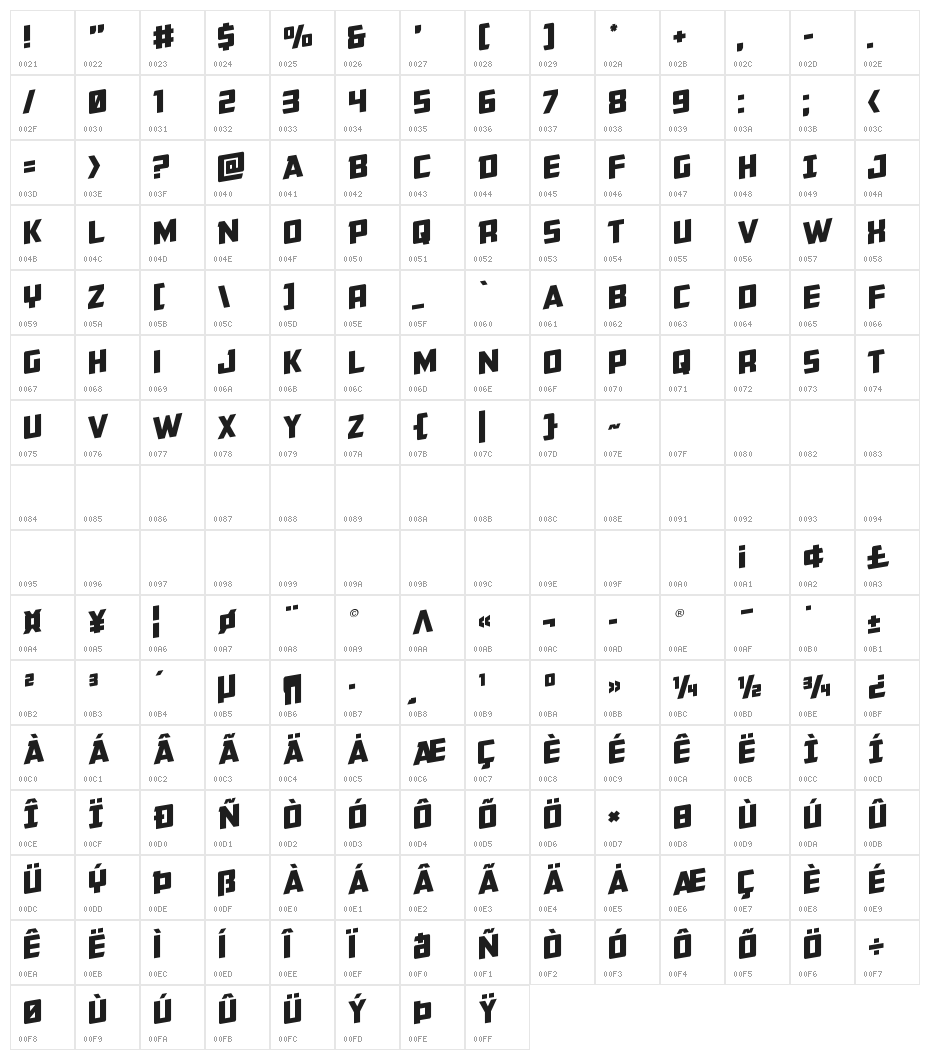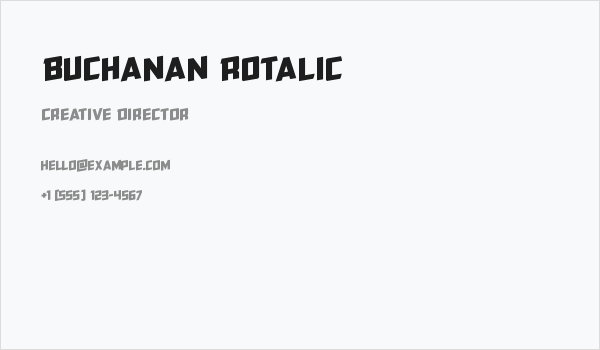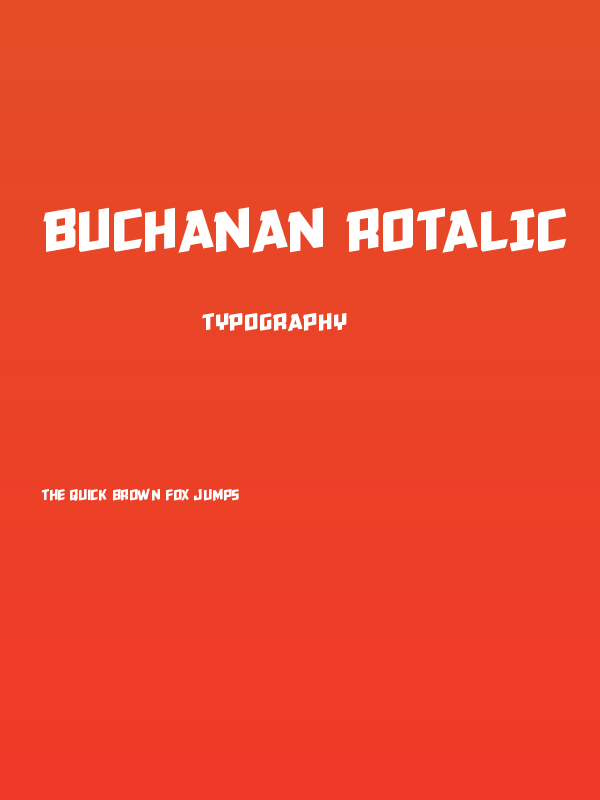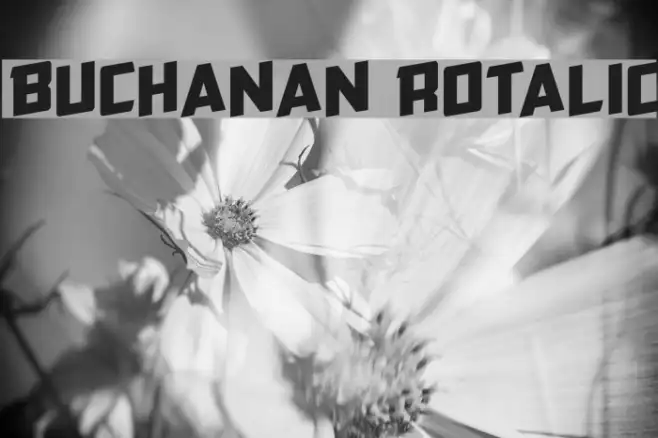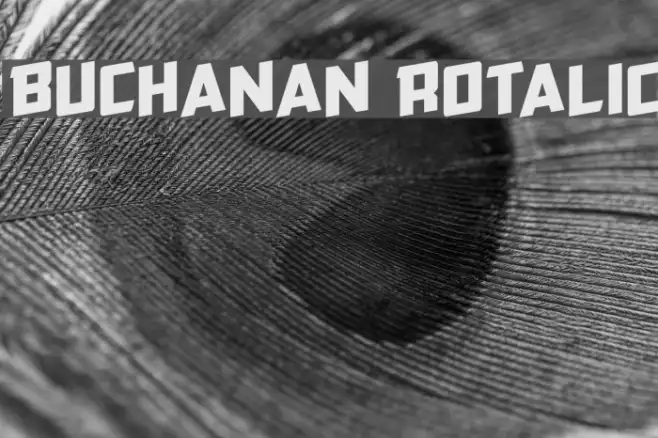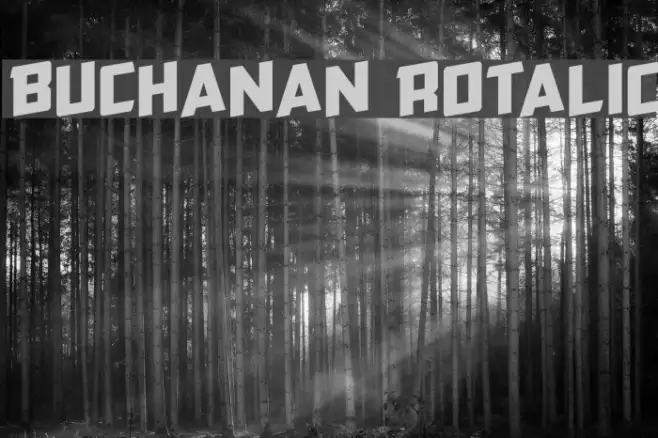
Buchanan Rotalic Font
Buchanan Rotalic Description
This font features a bold and dynamic style with a distinct slant, giving it a sense of motion and energy. The characters are blocky and robust, with sharp angles and a strong presence. The uppercase and lowercase letters maintain a consistent weight, contributing to a cohesive look. The numerals are equally bold, ensuring readability and impact. Special characters are designed to match the overall aesthetic, making them suitable for various applications. The font's design is both modern and slightly retro, making it versatile for contemporary and nostalgic projects.
| Proposed Projects | Ideal for sports branding, dynamic posters, video game titles, and action-themed designs. |